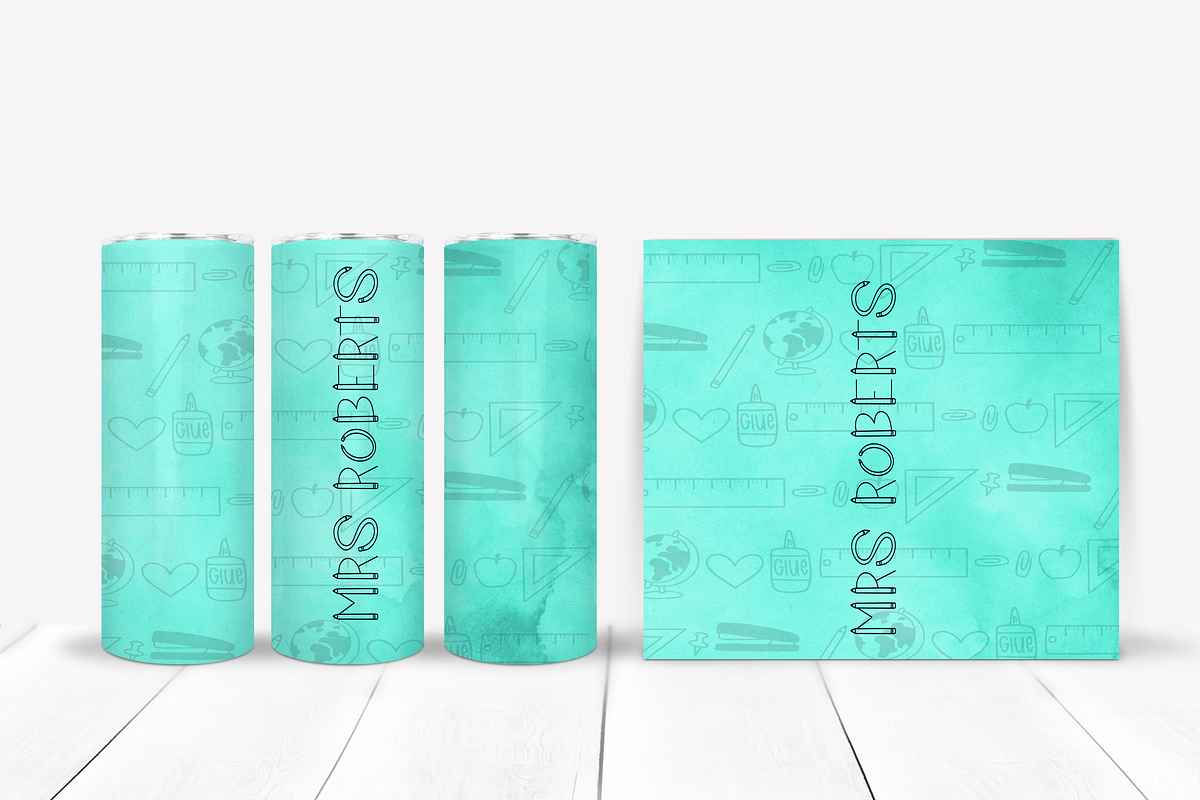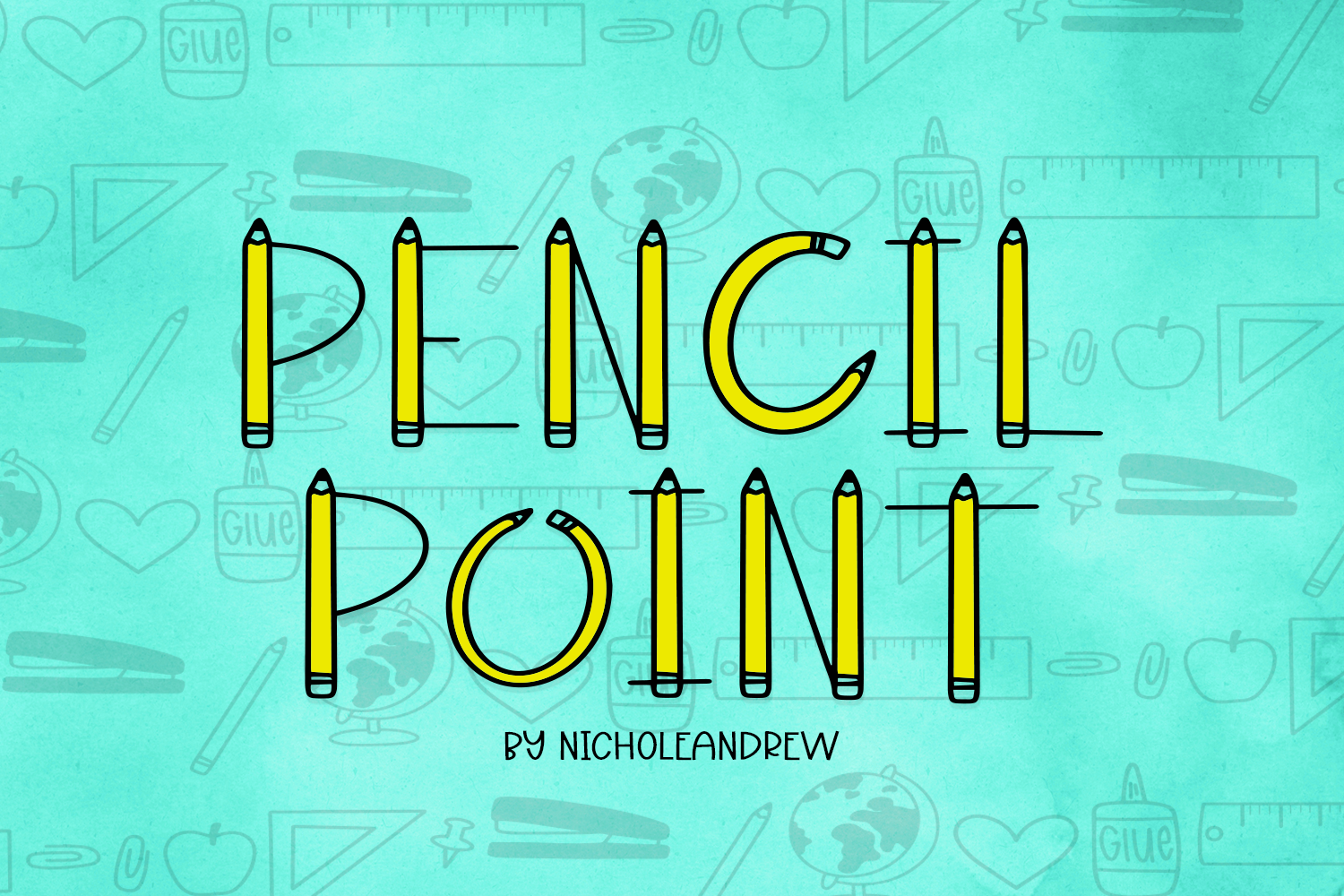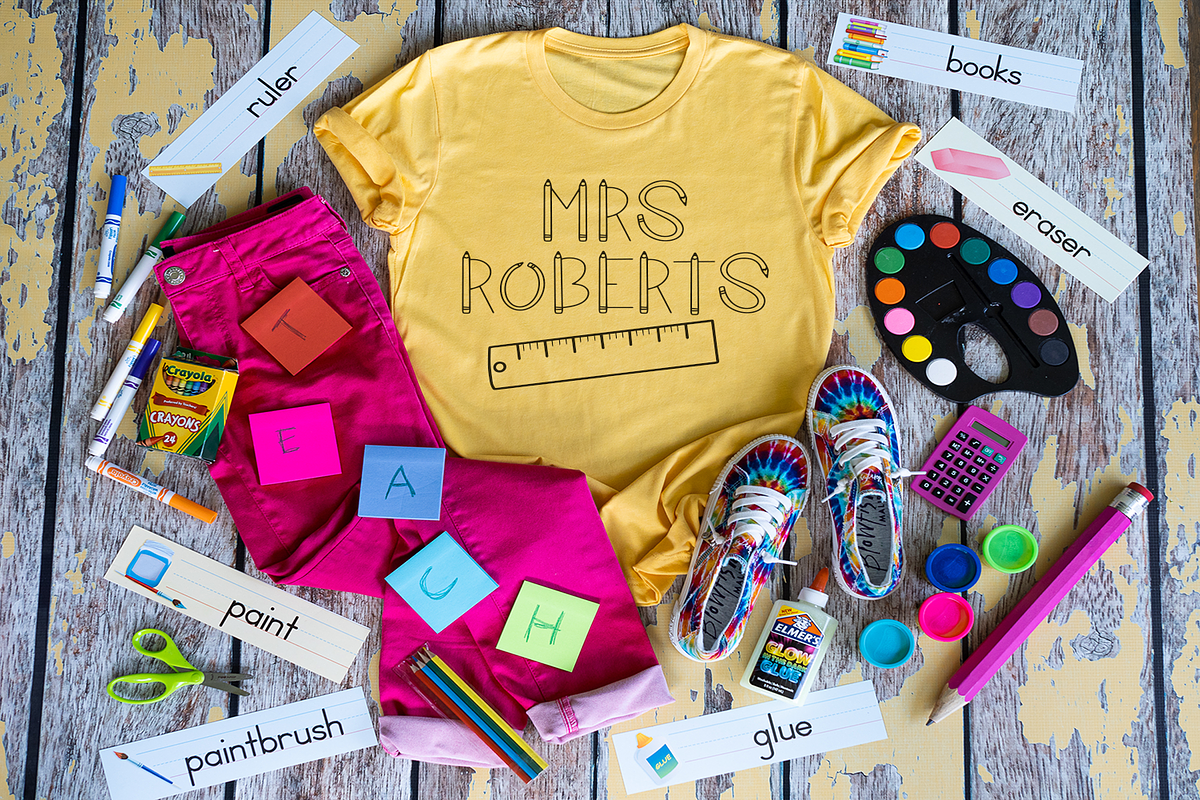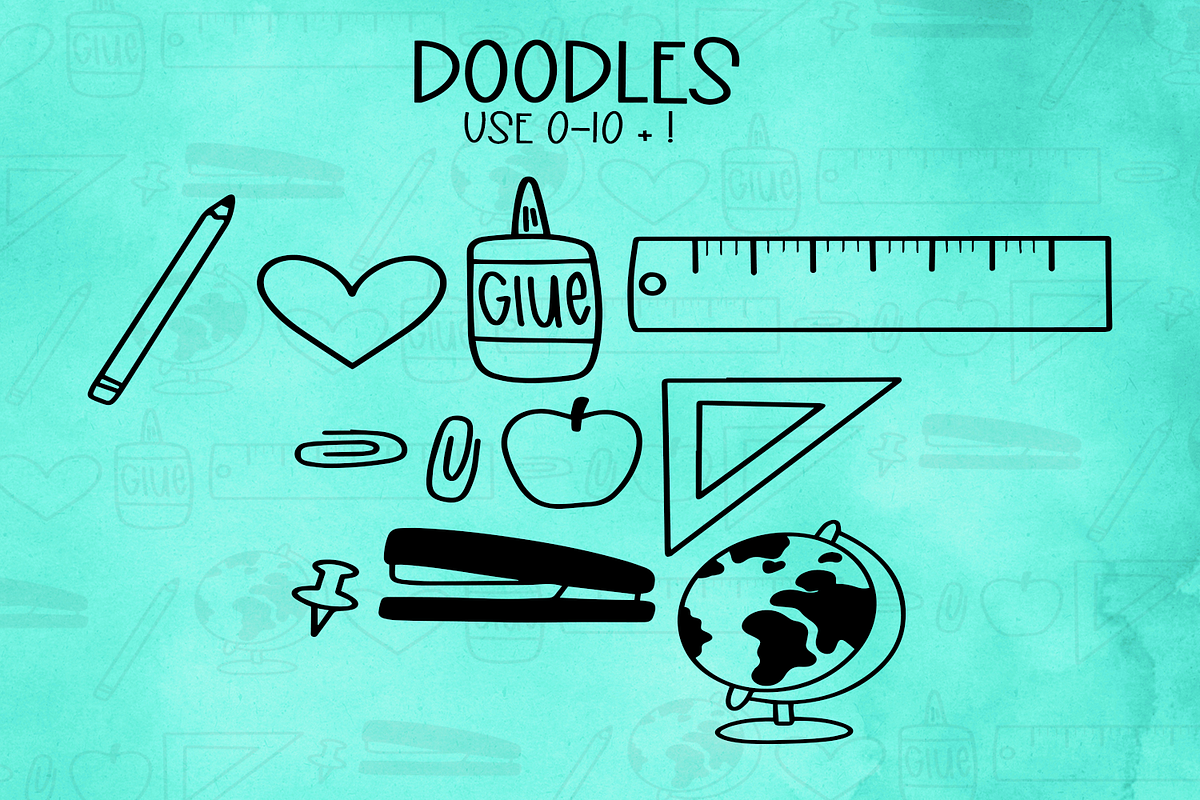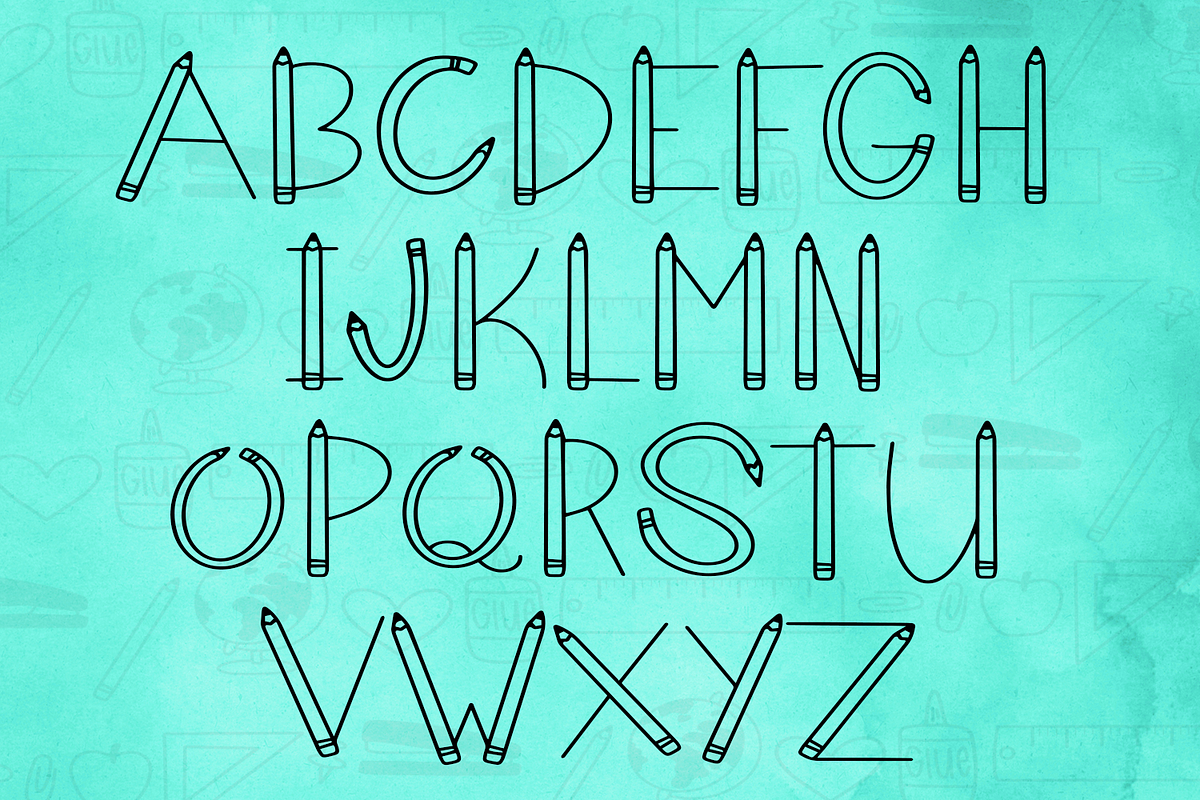
Pencil Point: A Font With Doodles
Head back to school with this fun font! Introducing, Pencil Point, a handwritten font with some fun school doodles! Create fun monograms, teacher designs, classroom decor or more with "Pencil Point"
To use the doodles, use numbers 0-9 and the ! This font is an uppercase font only, no language support, symbols or numbers.